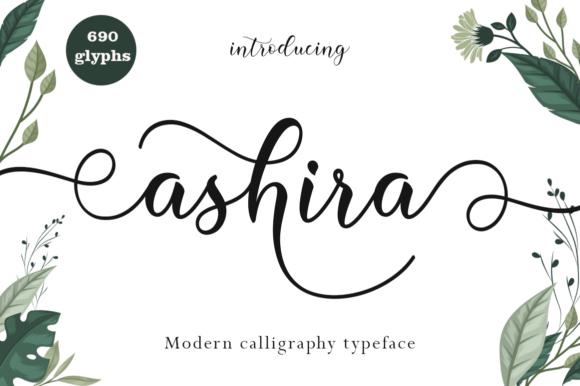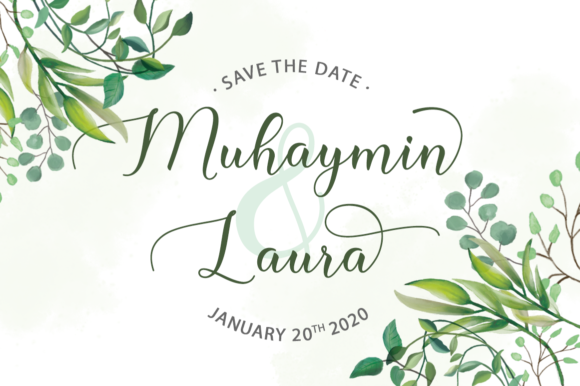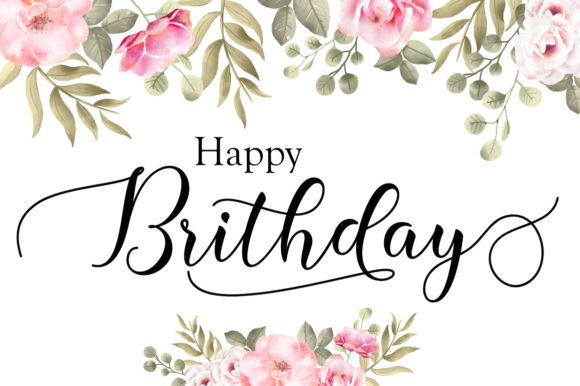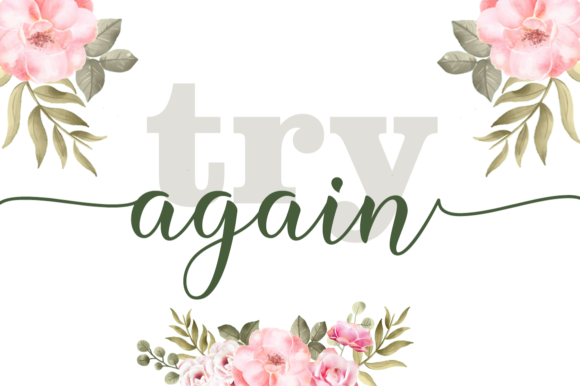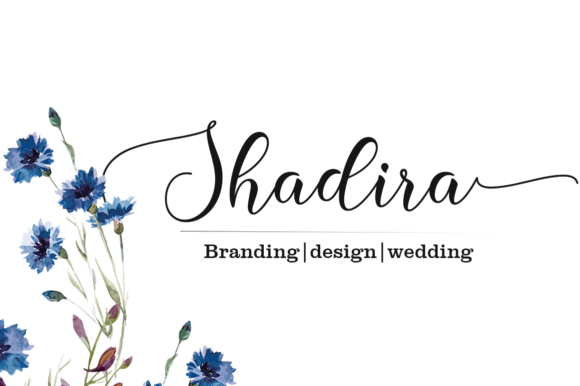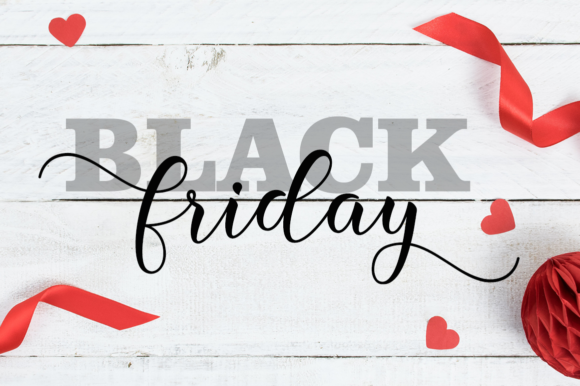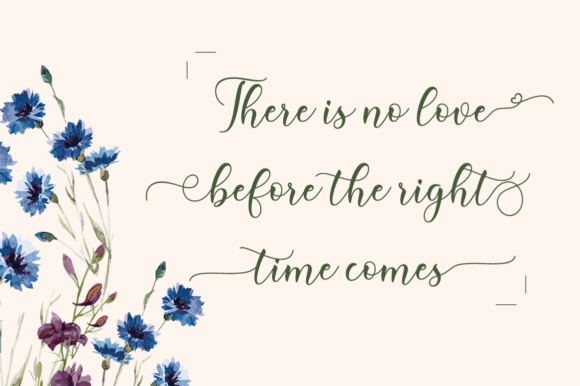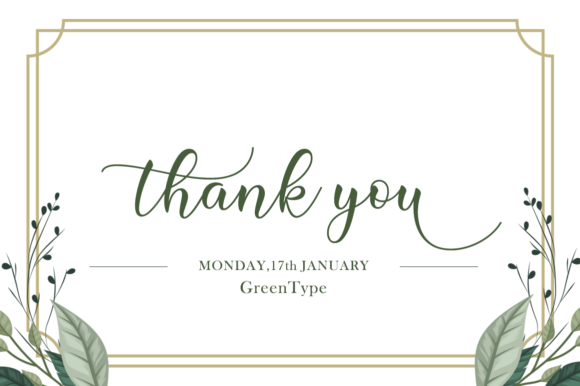
HomeScript FontsAshira Font Script Fonts Ashira Font FacebookXPinterestWhatsApp Ashira Font Poster 2 Ashira Font Poster 3 Ashira Font Poster 4 Ashira Font Poster 5 Ashira Font Poster 6 Ashira Font Poster 7 Ashira Font Poster 8 About Ashira Font Ashira is a gorgeous and light script, perfectly tailored to elevate any design idea to the next level. DOWNLOAD ON CREATIVE FABRICAThis font is sold and delivered by Creative Fabrica. Font Canyon may earn a commission if you buy through this link. People also explored Realistic Mock-ups on Vintage Background Curling Cozy Font Serenity Script Font Sublime Font Always Easter Font Mallians Font Sallia Font Santa’s Coloring Font Modern Font 411 0 TagsAshira Font Previous articleRancoons FontNext articleShuttezerg Font LEAVE A REPLY Cancel reply Comment: Please enter your comment! Name:* Please enter your name here Email:* You have entered an incorrect email address! Please enter your email address here Website: Save my name, email, and website in this browser for the next time I comment. Personal Use Free Farmhouse Christmas Personal Use Free Read more about this font Barbatrick Personal Use Free Read more about this font Bosk Personal Use Free Read more about this font Free Personal Use Free Read more about this font BLOG Transform Your Website: Elevate Your Typography with 7 Best Web Font Generators Are you ready to transform your website's typography from ordinary to extraordinary? Great! Today, we're diving into the world of web font generators, which... Best Fonts for YouTube Videos: Make Your Thumbnails Stand Out To increase your work productivity, choose the most readable fonts. Top 7 Google Fonts Alternatives for Faster and Privacy-Friendly Web Design (2025)